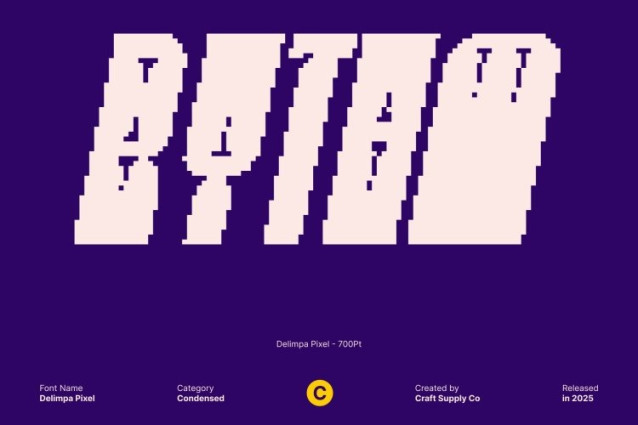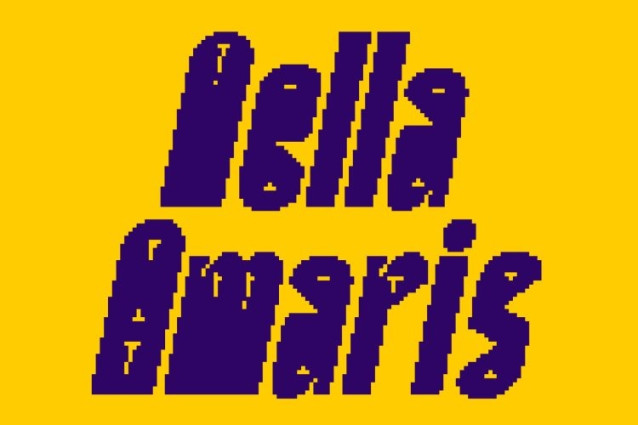
Delimpa Pixel Font
Delimpa Pixel Font This is a bold, condensed sans serif font that combines strong structure with distinctive inktrap details and a pixel-inspired character. This fusion creates a powerful, modern look designed to deliver maximum visual impact, especially in bold and expressive layouts.
Condensed Power with Digital Precision
Featuring tight proportions and carefully crafted inktrap elements, this font offers a fresh and contemporary take on condensed sans typography. The pixel influence enhances its digital personality, adding sharpness and rhythm while reinforcing its confident, high-energy presence.
Made for Creative and High-Impact Designs
This font is ideal for posters, branding, advertising, logos, and experimental visuals that demand attention. Its bold weight, condensed form, and pixel inktrap style make it a perfect choice for modern, creative projects that aim to stand out with clarity and attitude.
Versatile, Strong, and Easy to Use
Despite its striking appearance, this font remains versatile and functional across various sizes and applications. From headlines and banners to compact layouts, this font delivers a professional yet edgy tone adding boldness, precision, and contemporary character to any design.